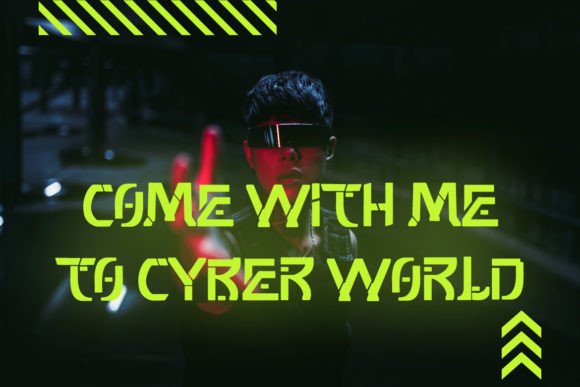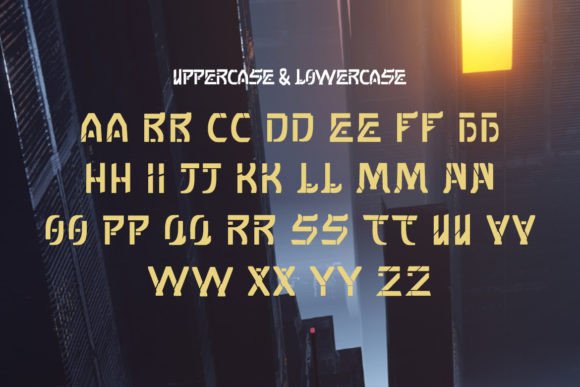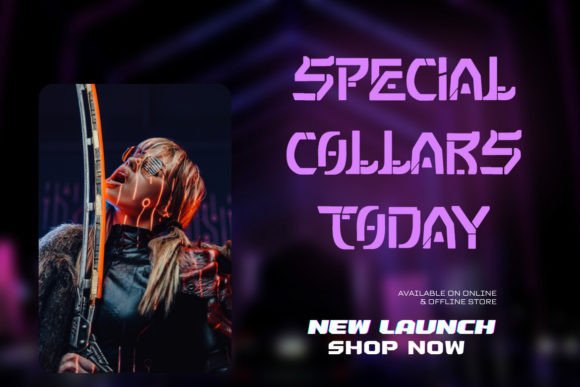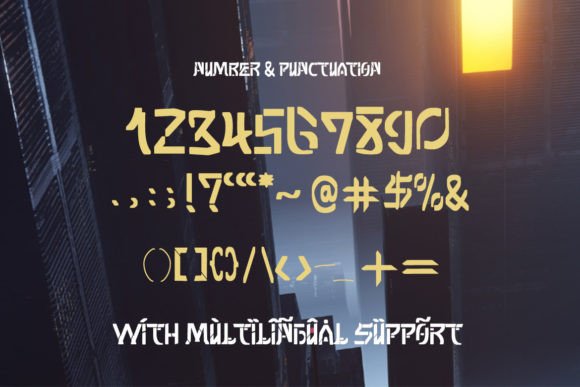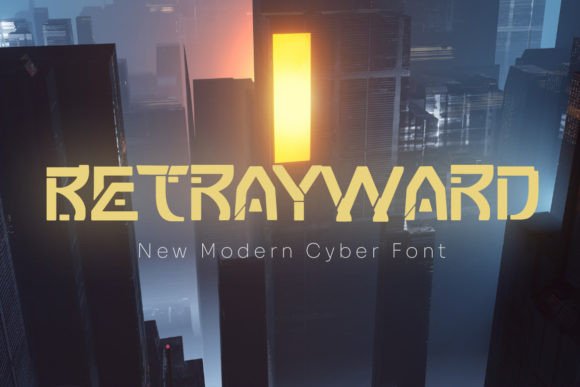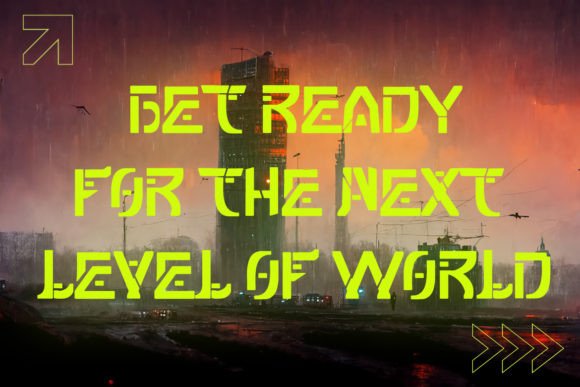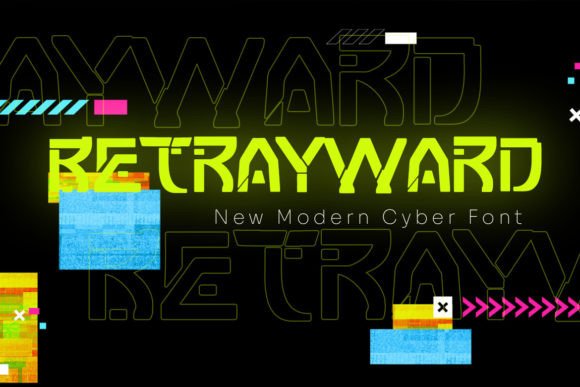
Introducing Betrayward Font: The Ultimate Modern Display Font for Innovative Designs
In the world of typography, fonts play a crucial role in conveying messages, expressing emotions, and creating visual identities. For designers and crafters, finding the perfect font can be a daunting task, especially when it comes to creating unique and innovative designs. This is where Betrayward Font comes in – a modern, futuristic display font that is sure to revolutionize your design game.
What is Betrayward Font?
Betrayward Font is a cutting-edge display font designed to make a statement. Its uniquely-shaped characters are carefully crafted to provide a fresh and futuristic look, perfect for creating original and innovative designs. Whether you’re working on a branding project, a website, or a marketing campaign, Betrayward Font is the ideal choice for designers who want to push the boundaries of creativity.
Key Features of Betrayward Font
- Modern and Futuristic Design: Betrayward Font boasts a sleek and contemporary design that’s perfect for creating modern and edgy designs.
- Uniquely-Shaped Characters: Each character in Betrayward Font is uniquely shaped, providing a distinctive look that’s sure to grab attention.
- Highly Versatile: Betrayward Font can be used for a wide range of design projects, from logos and branding to headings and titles.
- Easily Readable: Despite its futuristic design, Betrayward Font is highly readable, making it perfect for use in digital and print materials.
- Logos and Branding: Use Betrayward Font to create a unique and memorable logo that sets your brand apart from the competition.
- Headings and Titles: Add a touch of futurism to your headings and titles with Betrayward Font, perfect for use in websites, magazines, and more.
- Social Media Graphics: Create eye-catching social media graphics with Betrayward Font, guaranteed to grab attention and drive engagement.
- Advertising and Marketing: Use Betrayward Font to create bold and attention-grabbing ads that showcase your brand’s personality.
- Unique Design: Betrayward Font offers a truly unique design that’s sure to make your designs stand out.
- High-Quality: Betrayward Font is a high-quality font that’s designed to provide exceptional clarity and readability.
- Versatile: Betrayward Font can be used for a wide range of design projects, making it a valuable addition to any designer’s toolkit.